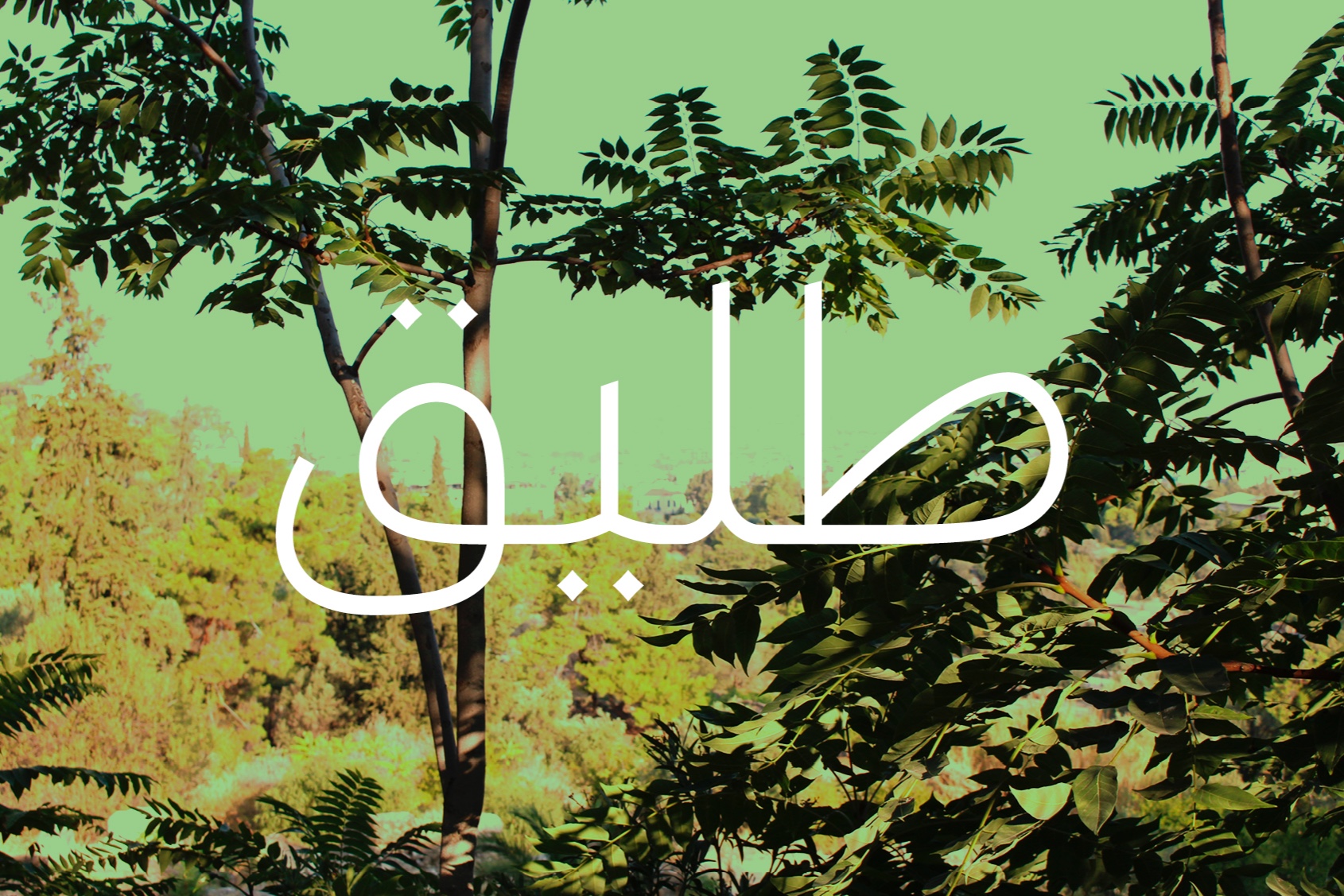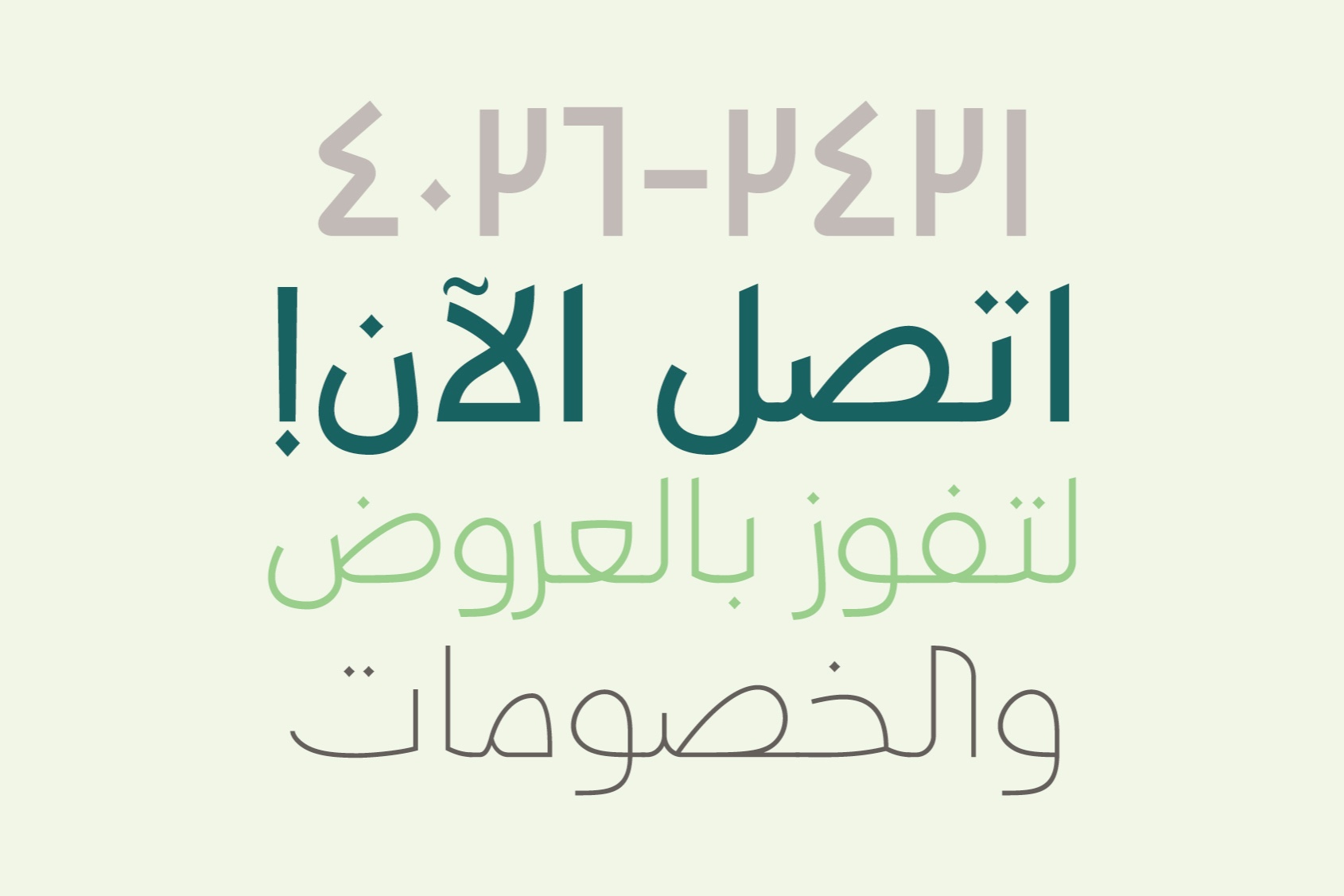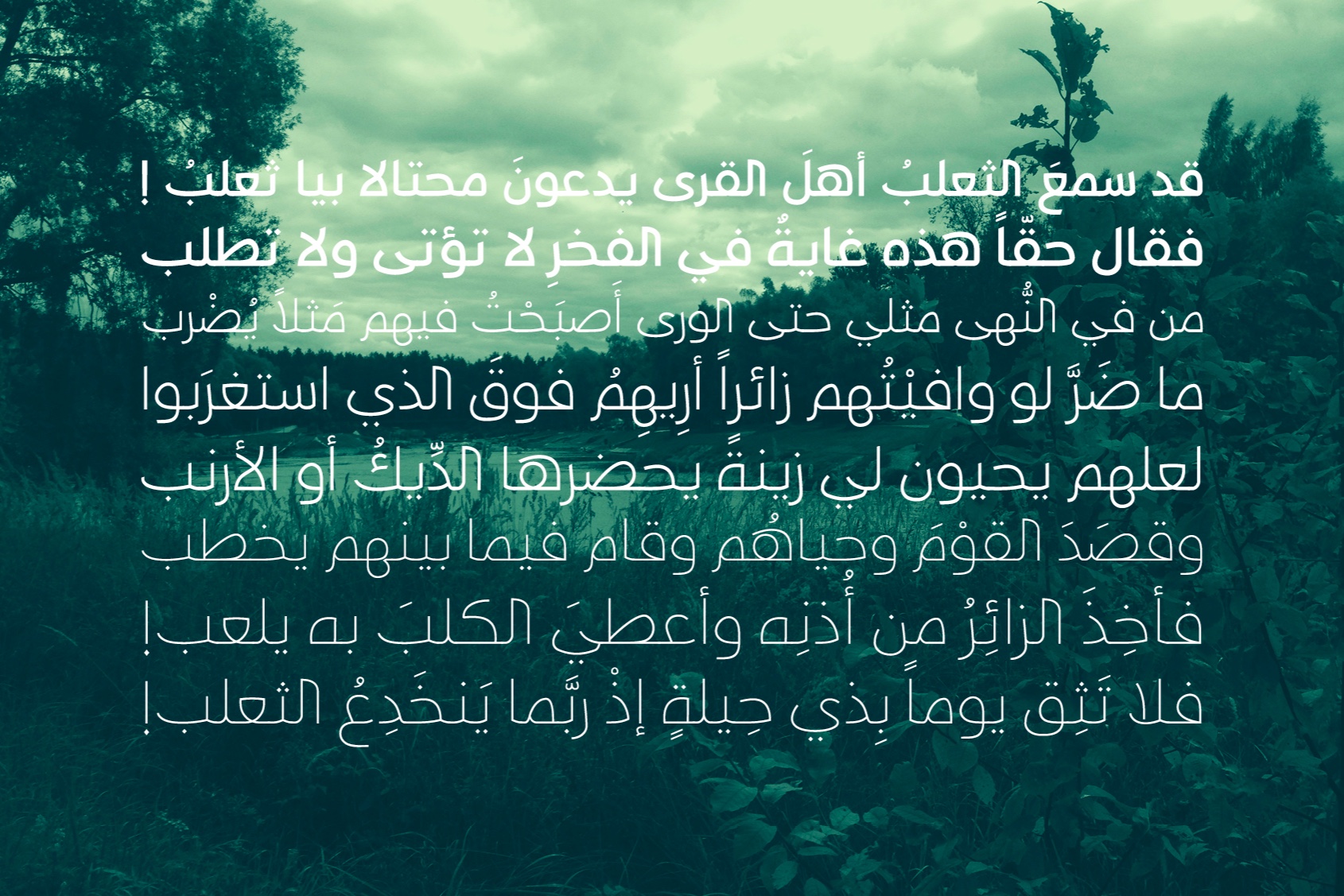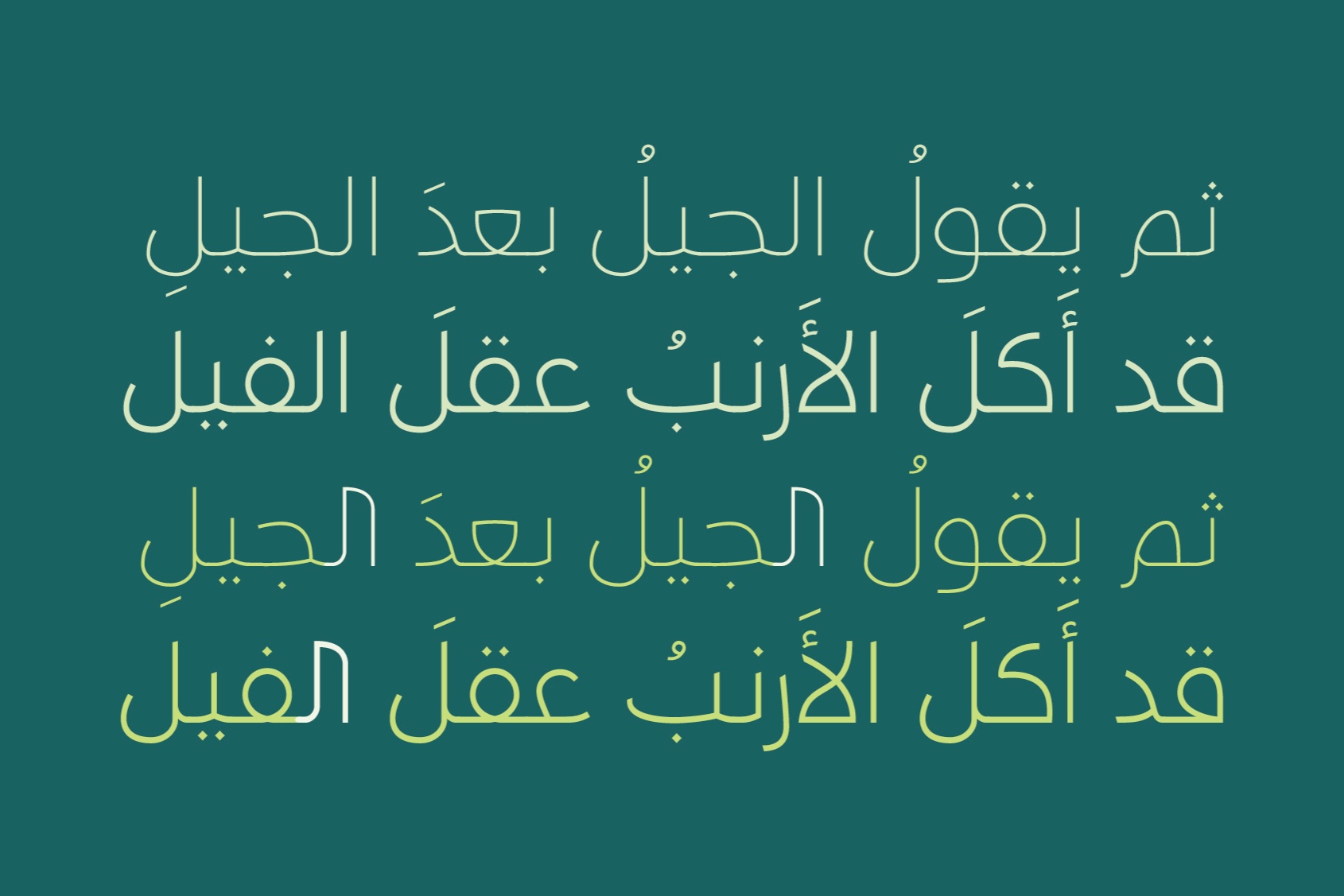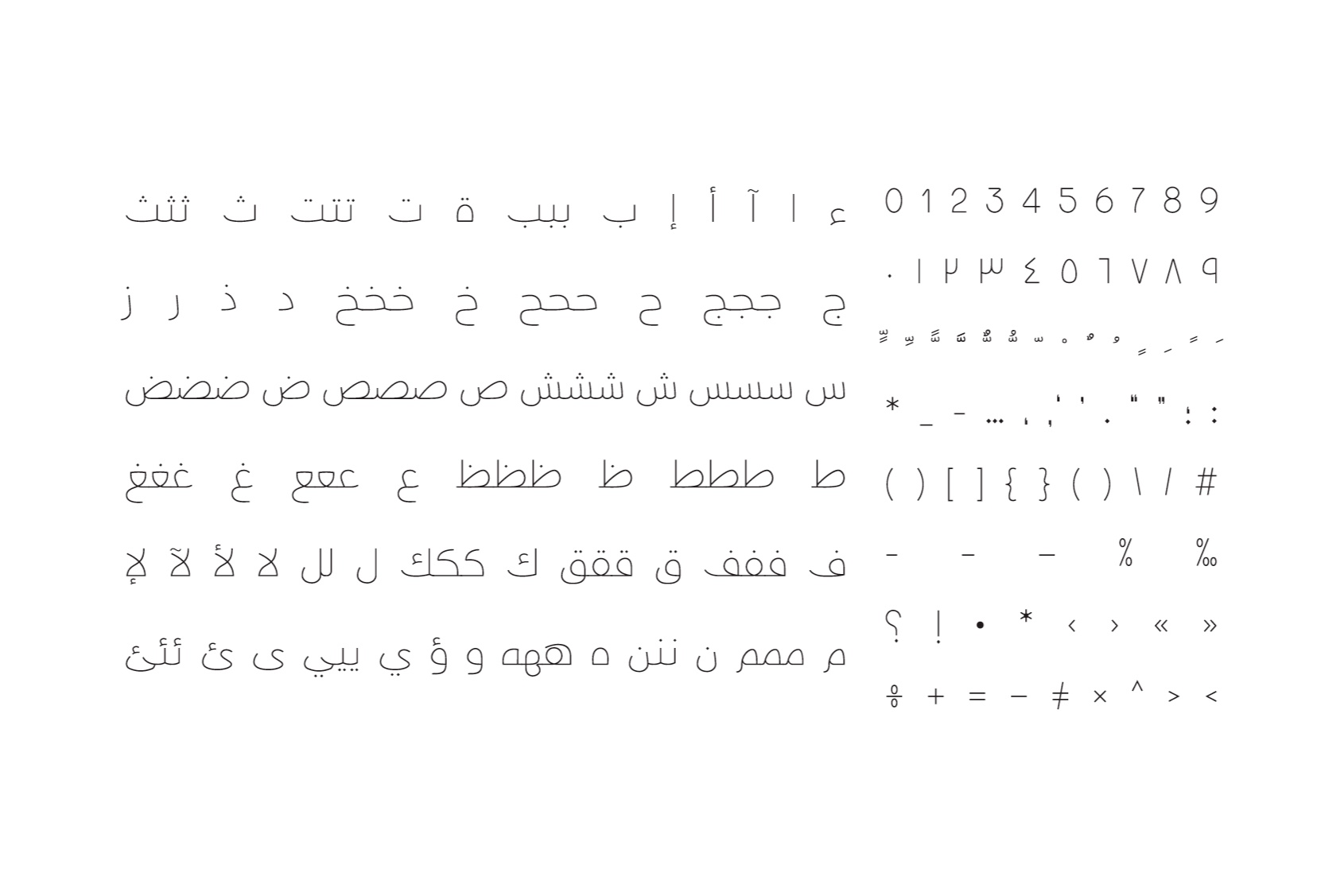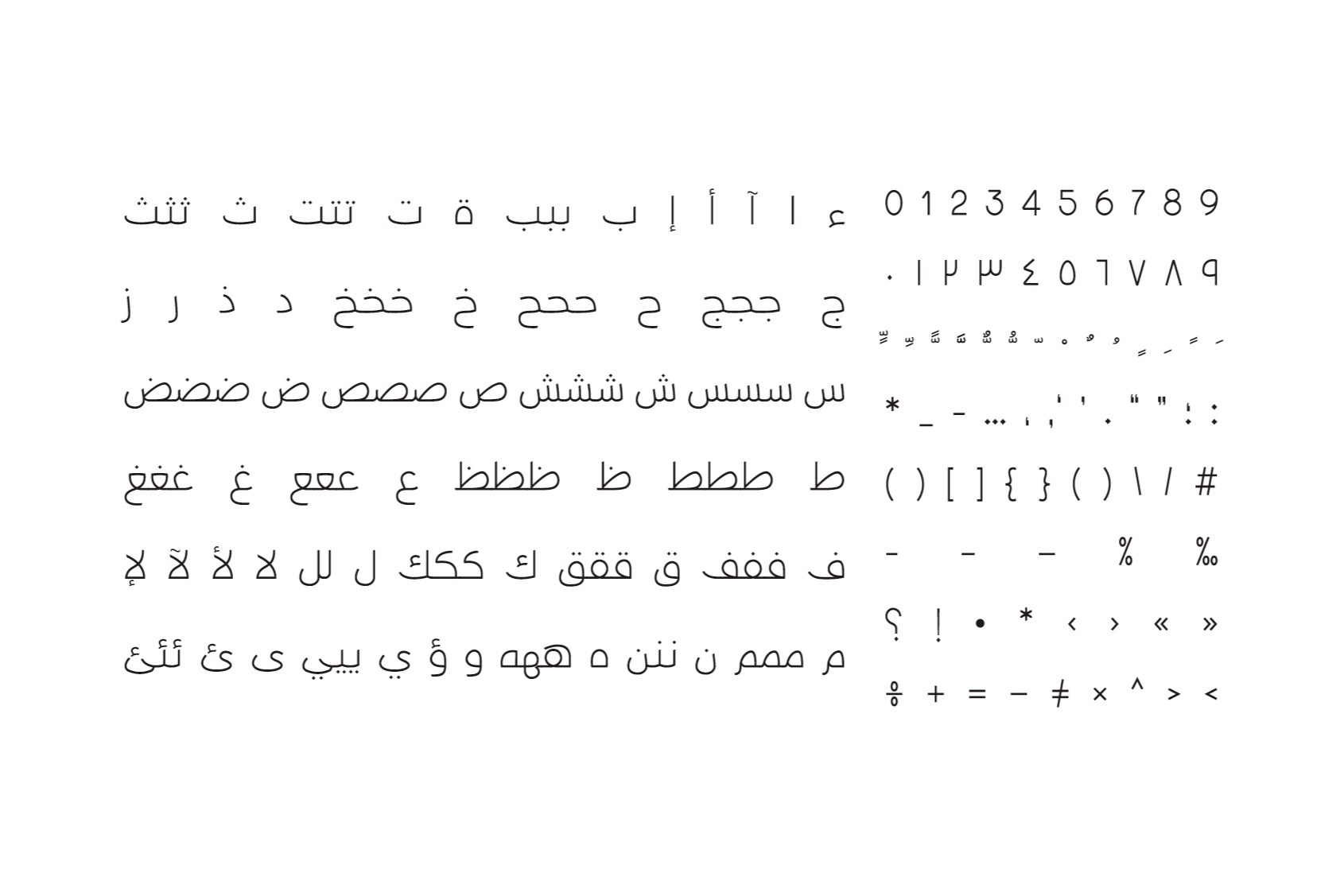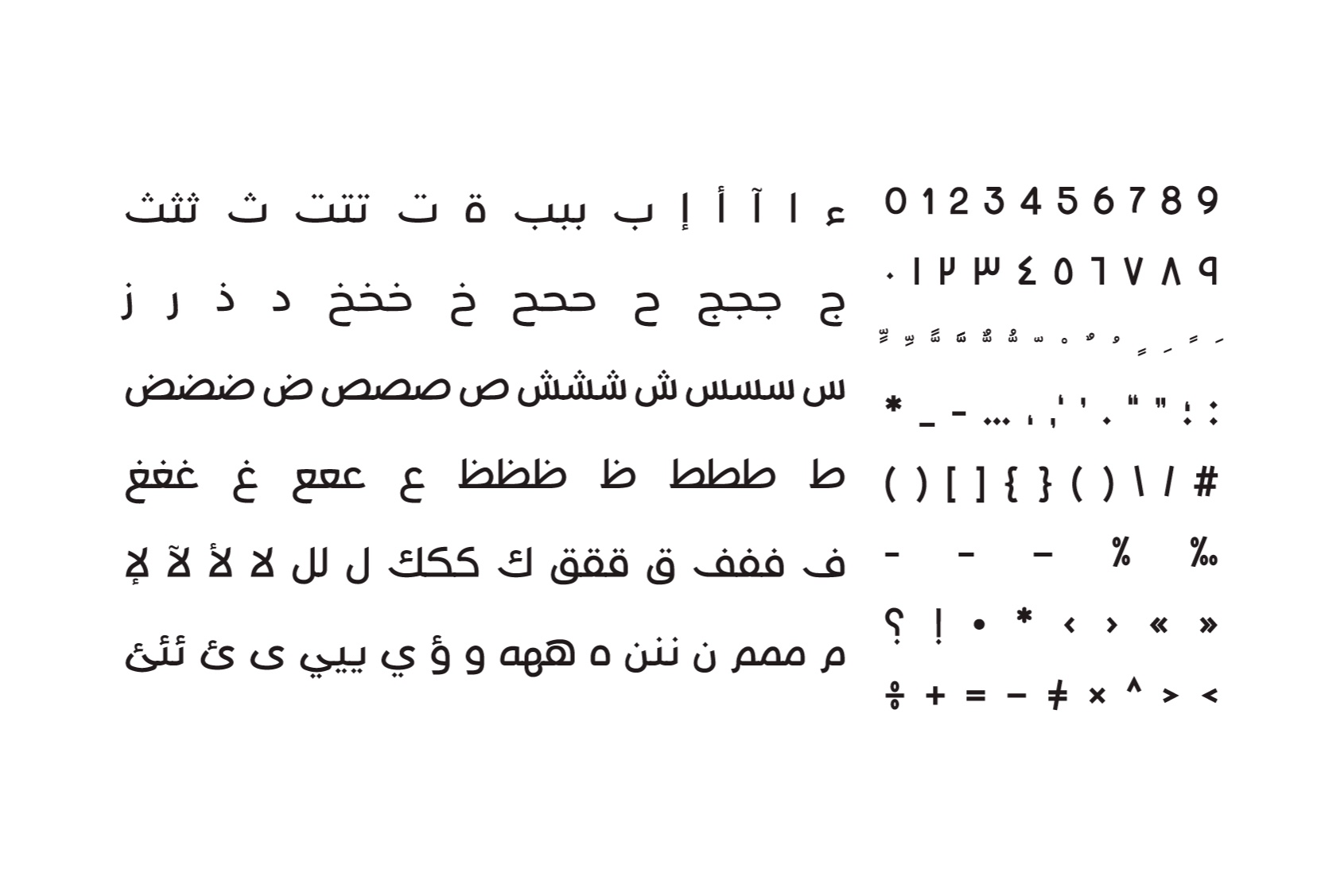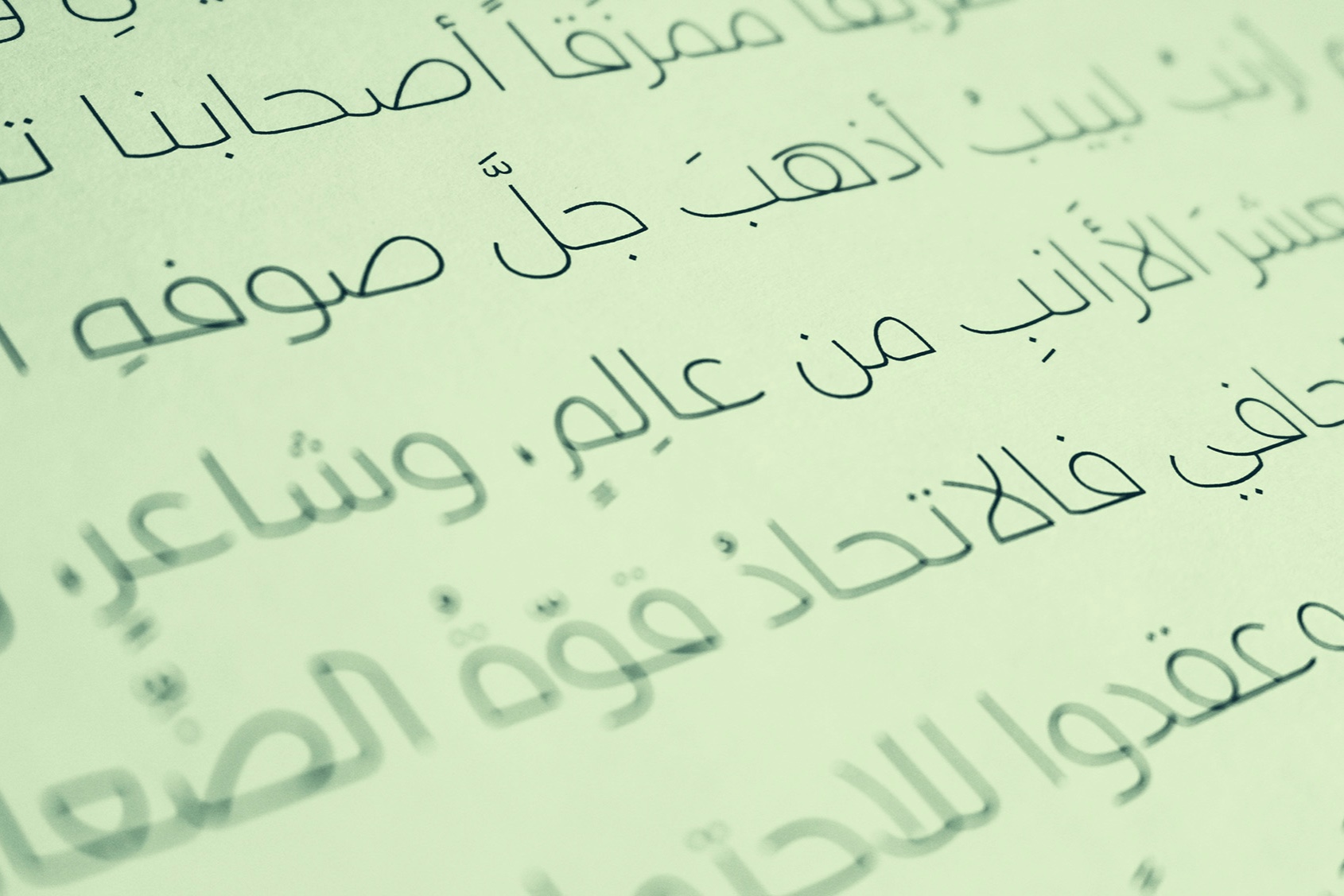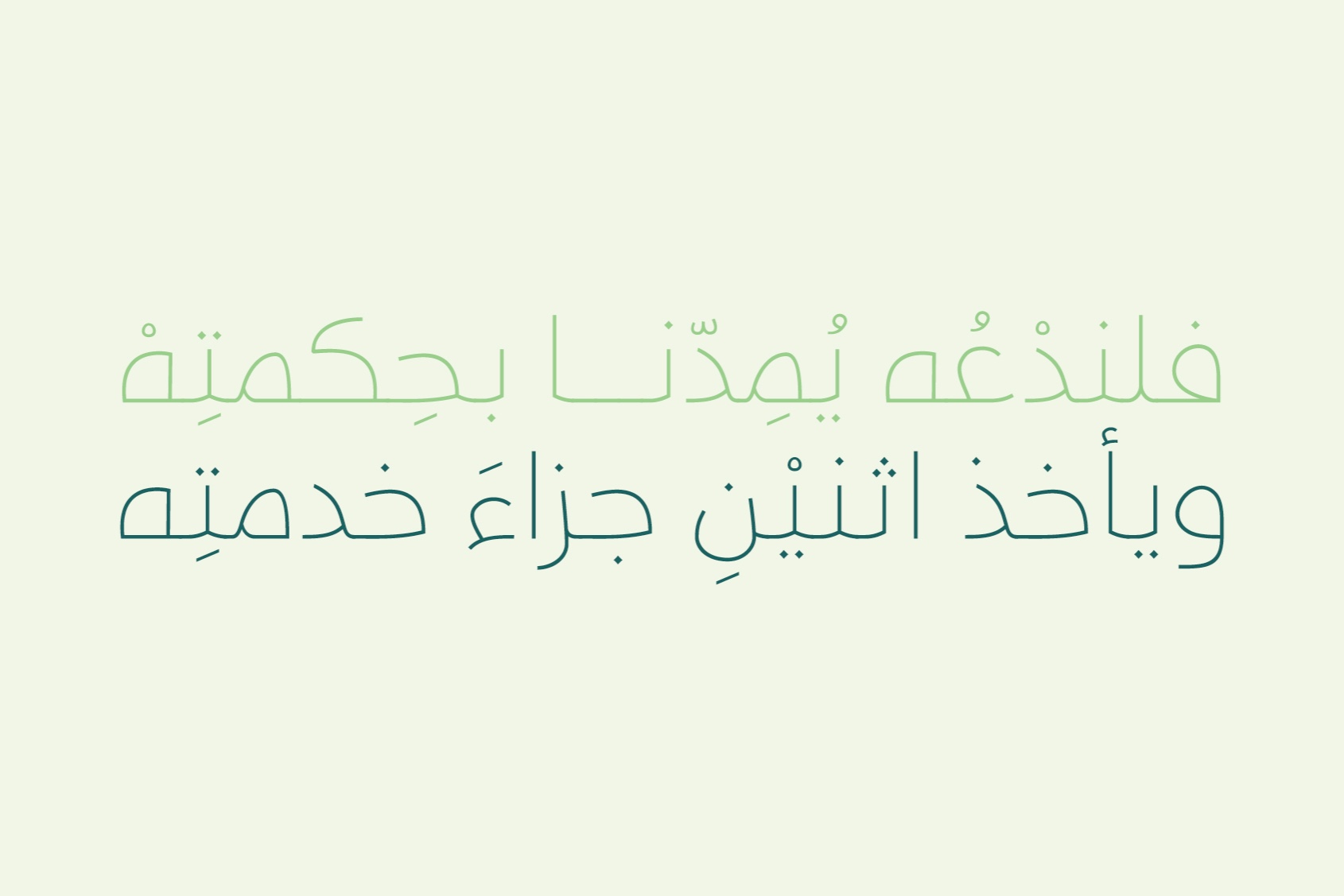
Taleeq, derived from Arabic, translates to Fluent or Freed. This typeface features a chirographic style and is available in three weights, making it suitable for a range of uses such as publications, print media, and advertising.
Light, regular and bold
300+ Characters